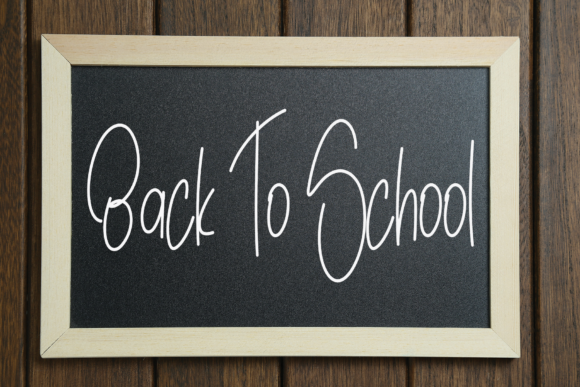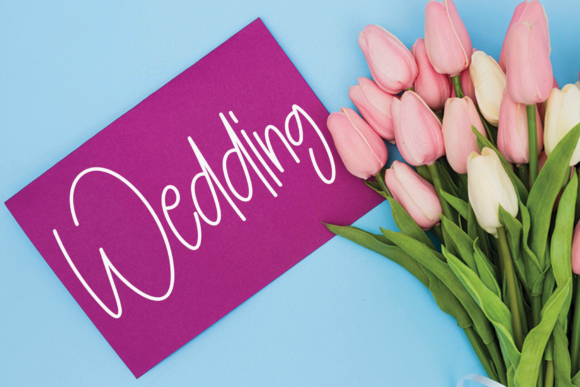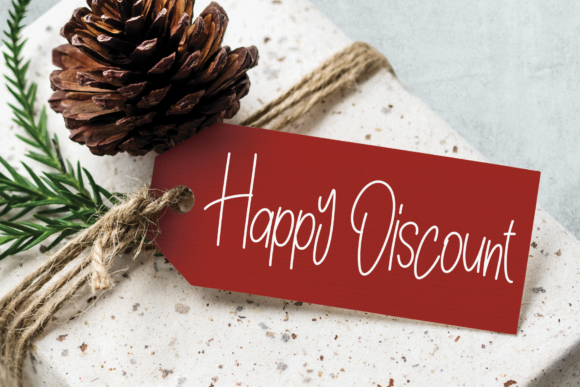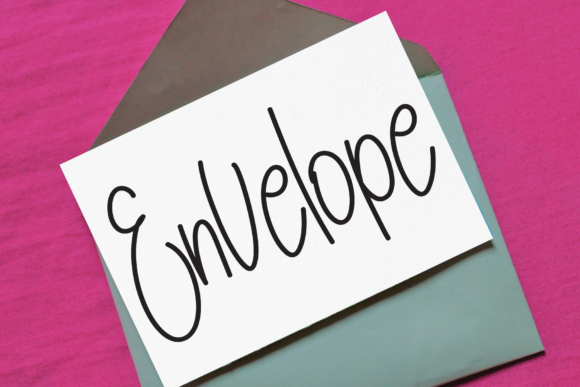
Discover the Perfect Blend: Hello Milkshake Font
You know that moment when you’re brainstorming ideas for a new project, and suddenly the perfect font pops into your head? For designers, this is often the spark that sets the creative wheels in motion. And for many, that font is the Hello Milkshake Font – a simple, quirky, and adaptable handwritten font that adds a relaxed touch to any design.
Whether you’re working on a casual blog post, a social media campaign, or a fun project for a client, the Hello Milkshake Font is a versatile choice that can bring a smile to your audience’s face. Its informal style and casual vibe make it a go-to font for designers who want to add a friendly and approachable feel to their work.
So, what makes the Hello Milkshake Font so valuable to designers? Its ability to adapt to any project, from digital to print, and its effortless charm that can elevate any design to the next level. With its unique blend of simplicity and playfulness, the Hello Milkshake Font is a must-have for any designer looking to add a personal touch to their work.
Hello Milkshake Font Key Features
- Unique Characteristics: Hello Milkshake Font features a fun and playful script style with swashes and flourishes, making it perfect for creative and eye-catching designs.
- Kerning and Ligatures: Hello Milkshake Font includes advanced kerning and ligature pairs, ensuring that text looks professional and polished, even at small font sizes.
Hello Milkshake Font Review
I’ve had the chance to play around with the Hello Milkshake Font, and I’m excited to share my thoughts with you.
- The font’s playful and whimsical vibe is perfect for brands that want to stand out in a crowded market.
- The milkshake-inspired design is super creative and adds a fun touch to any project.
- The font is highly customizable, allowing you to adjust the weight, spacing, and even the texture of the milkshake.
- The font might be too loud for more serious or professional projects, so use it sparingly.
- The texture feature can be a bit overwhelming if overused, so be mindful of the overall design.
- Some users may find the font’s unique design challenging to read, especially at smaller sizes.
I think the Hello Milkshake Font is a great addition to any designer’s toolkit, especially for projects that need a fun and playful touch. While it may have some limitations, the font’s creativity and customizability make it a great choice for the right project.
The Hello Milkshake Font is perfect for creating playful and whimsical designs. To get the most out of it, use it in combination with bold colors and fun illustrations.
The Hello Milkshake Font is ideal for:
- Children’s book covers and illustrations
- Party and event invitations
Alternatives to Hello Milkshake Font
Bebas Neue is a modern sans-serif font with a clean and minimalist aesthetic. It is ideal for use in logos, titles, and headings where a bold and eye-catching font is required. Bebas Neue has a more geometric and futuristic feel compared to Hello Milkshake Font, which has a more playful and handwritten look.
Great Vibes is a elegant and cursive script font that is perfect for use in creative and artistic projects. It has a more refined and sophisticated feel compared to Hello Milkshake Font, which is more casual and playful. Great Vibes is ideal for use in titles, headings, and body text where a touch of elegance is required.
Aleo
Aleo is a modern sans-serif font with a clean and minimalist aesthetic. It is ideal for use in body text, headings, and titles where a clear and readable font is required. Aleo has a more neutral and understated feel compared to Hello Milkshake Font, which has a more distinctive and attention-grabbing look.